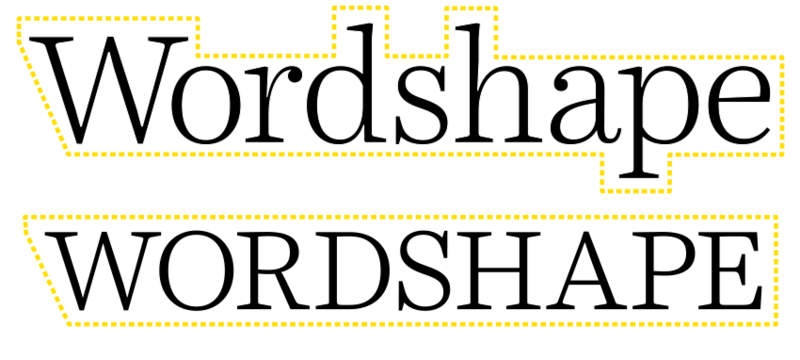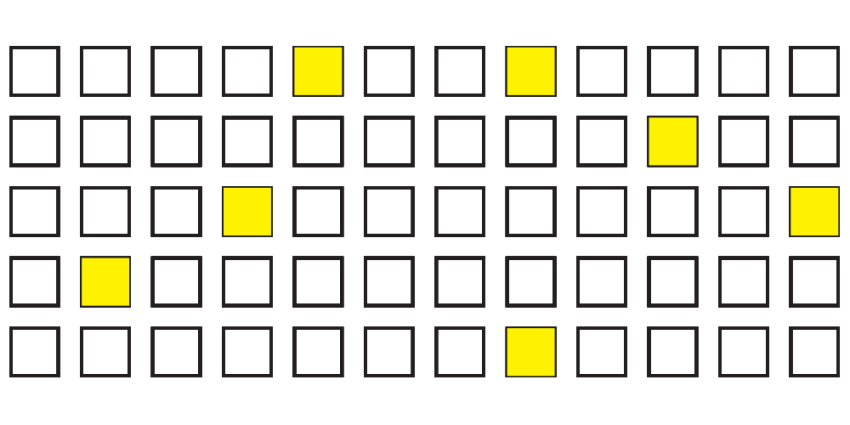
When I started in graphic design, I had no clue how important typography was. My first boss told me that the reason I had a job was because of "the content." If customers weren’t reading, my designs weren’t working. No matter how spectacular the photos were or what type of varnish was used on the cover—if it wasn’t being read, it wasn't selling our clients' products and services, and therefore, I was out of a job.
Anyone can make a headline look beautiful, but keep the attention of the reader throughout the body copy so they'll want to turn the page and read more? That's your challenge.
As a graphic designer or creative director, you’re designing for the reader; not just for yourself or for the client. Others may try to dictate design choices to suit their own personal tastes, but let's keep the business goal in mind; persuading a person to act, whether that is to subscribe, purchase, donate, write a letter or so on.
Let's design for the reader first, then make choices on graphic elements such as imagery and color afterwards. For example, you're designing a driving experience so that a person can, first and foremost, drive the car. All the bells and whistles on the dashboard should not deter from that core goal.
Typography is a tool to help readers take information off the page, and that's if it's used correctly. The way type is arranged affects how people to read, and, adversely encourage them to avoid reading too. With typography, designers work with all sorts of tools; with grids, picas, glyphs but we also need to know a bit of psychology in order to typeset for the reader.
How to know if you’re encouraging your readers to read, or offending them? Here's three steps in which you can set up your design for success:
Understand how humans read.
It's important to understand how humans recognize words and how the brain processes information. Research shows that to a large degree, we read by the shape of the word, rather than letter by letter. Our eyes scan a page in a rapid movement (otherwise known as a saccade), picking up word shapes along the way while our brains convert those forms into meaning.
How fast we saccade is based on our own reading experience, of course, but once we are used to seeing a word, we can instantly recognize the word based on that shape for the rest of our life (and why logo marks are so memorable).
The outer shape outlines the unique shape around the ascenders and descenders of a word. The more unique the shape, the easier it is to read. Therefore, type set in all capital letters is a little harder to read. To make all-caps more readable, space out the letters to slow the reader down.
Provide clues for faster scanning.
A good hierarchical system uses the Gestalt Law of Similarity to tell the reader which areas to scan to find what they may be looking for. The Law of Similarity, one of the Gestalt Laws of Perceptual Organization does just that, tells the brain that items that are similar tend to be grouped together.
If certain visuals look similar, the brain groups together in the similar context. Consistency is important for how we format headers, sub-headers, footnotes and other elements of hierarchy. Choose one typeface, one size, and one style for these items. Change the system, and the brain will perceive it otherwise.
For example, I might choose to set my headers Miller Text Roman Small Caps set in 12 points across a whole document. Once that style is established, then the person reading knows now to jump to each set of text in small caps to read what the next block of copy is about.
Help people read more competently.
As a designer, you can actually change the reading experience altogether; slow reading down, speed reading up and so on. Do your readers a favor and help them to read by choosing typefaces that encourage them to keep reading your body copy without distraction.
One way to do this is to choose a typeface that has a little bit of contrast. Monotone, or uniform stroke letterforms are less readable than ones with some level of contrast. A modest variety of width in the strokes, transitions and stress of a letterform helps to inform the eye what the letter is, and provide an immediate identification of the word to the reader. If possible, choose a typeface that has minor to medium contrast. Once letterforms have extreme contrast in strokes and stress, they become difficult to read again.
I hope you'll design for your audience and encourage your readers to act!